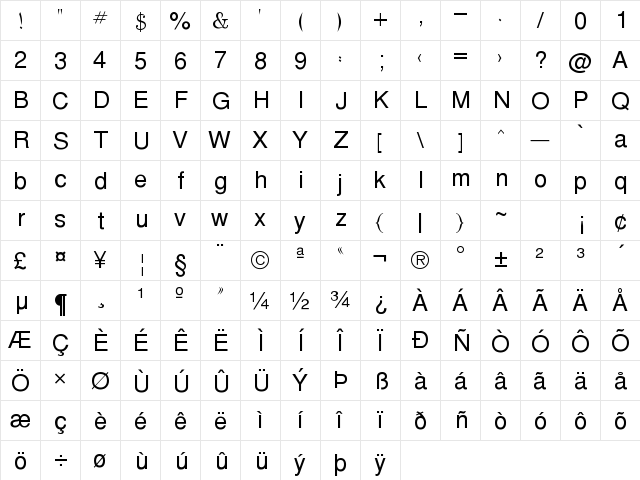
WinSoft Thuluth Pro Light
| Foundry | WinSoft S.A. |
| Designer | Mourad Boutros |
Design Context for WinSoft Thuluth Pro Typeface
WinSoft Thuluth Pro takes a measured approach to typography — its balanced proportions and neutral character make it a reliable workhorse for both digital and print work. Its slender proportions lend an understated elegance to any composition.
Pro Tip: Use WinSoft Thuluth Pro in both headline and body roles to test its range before committing to a single application.